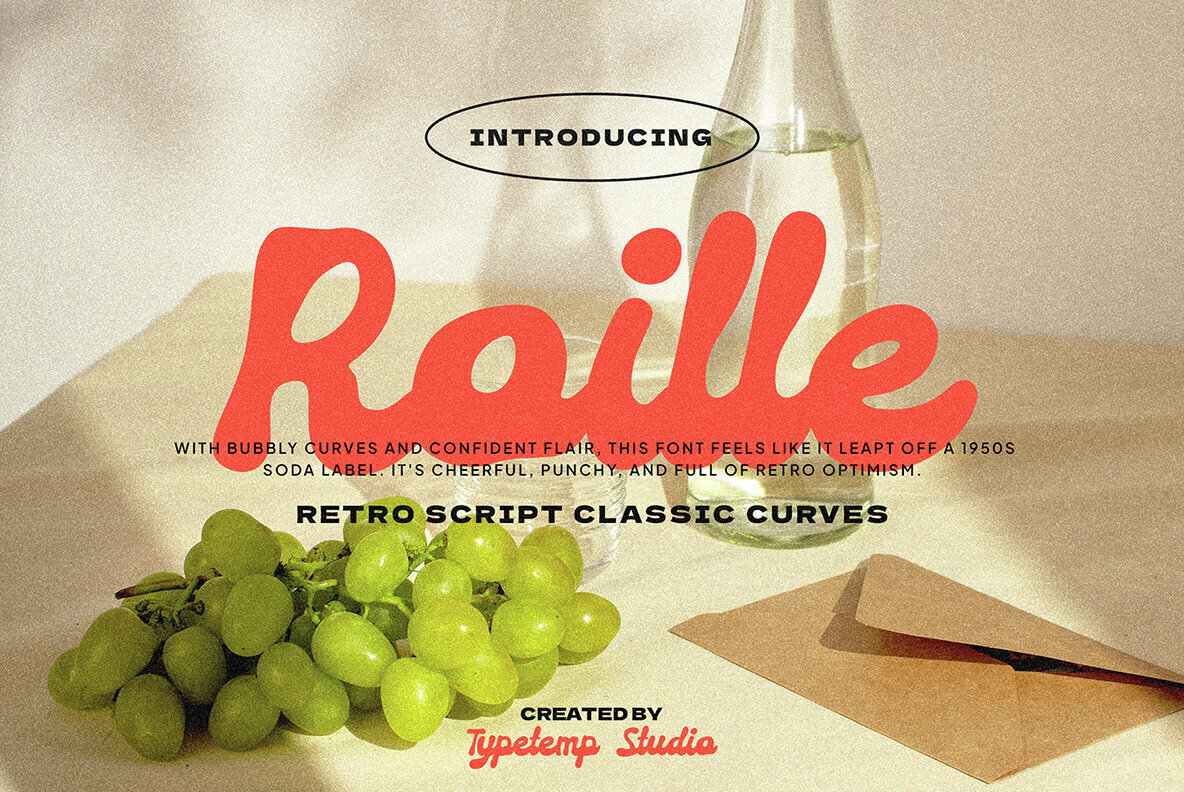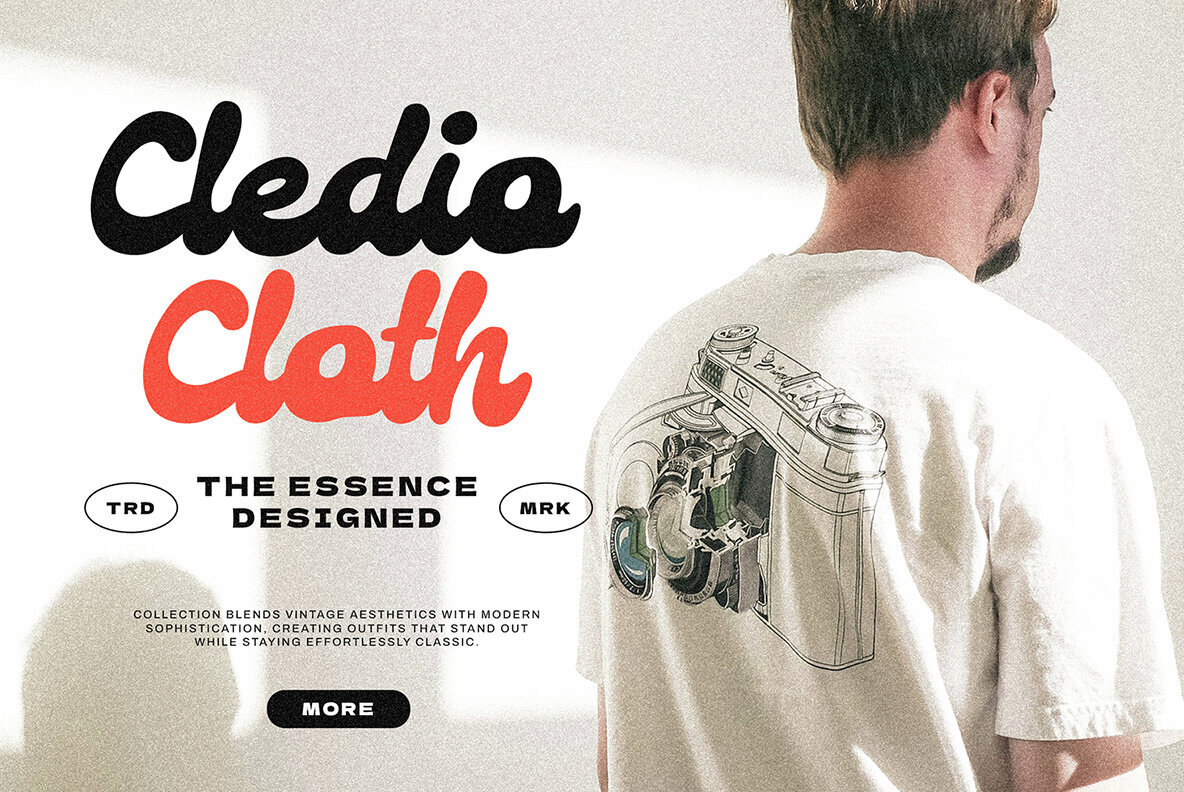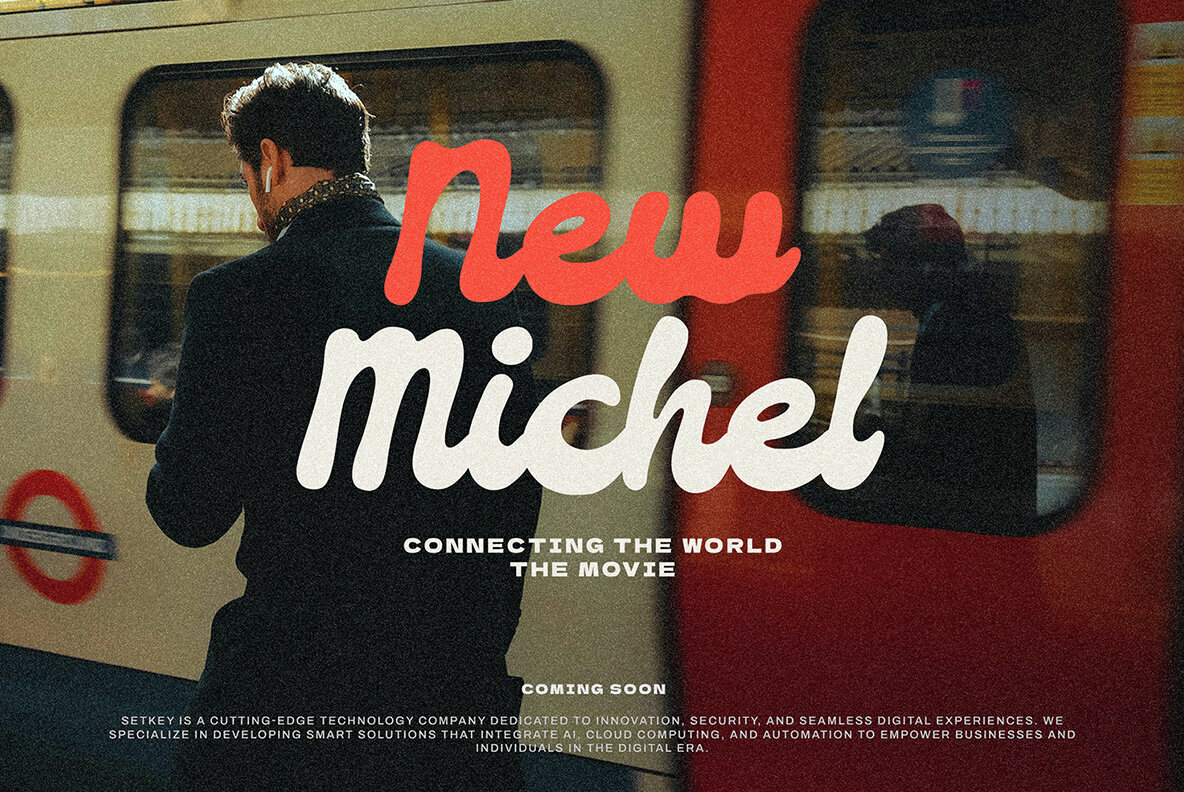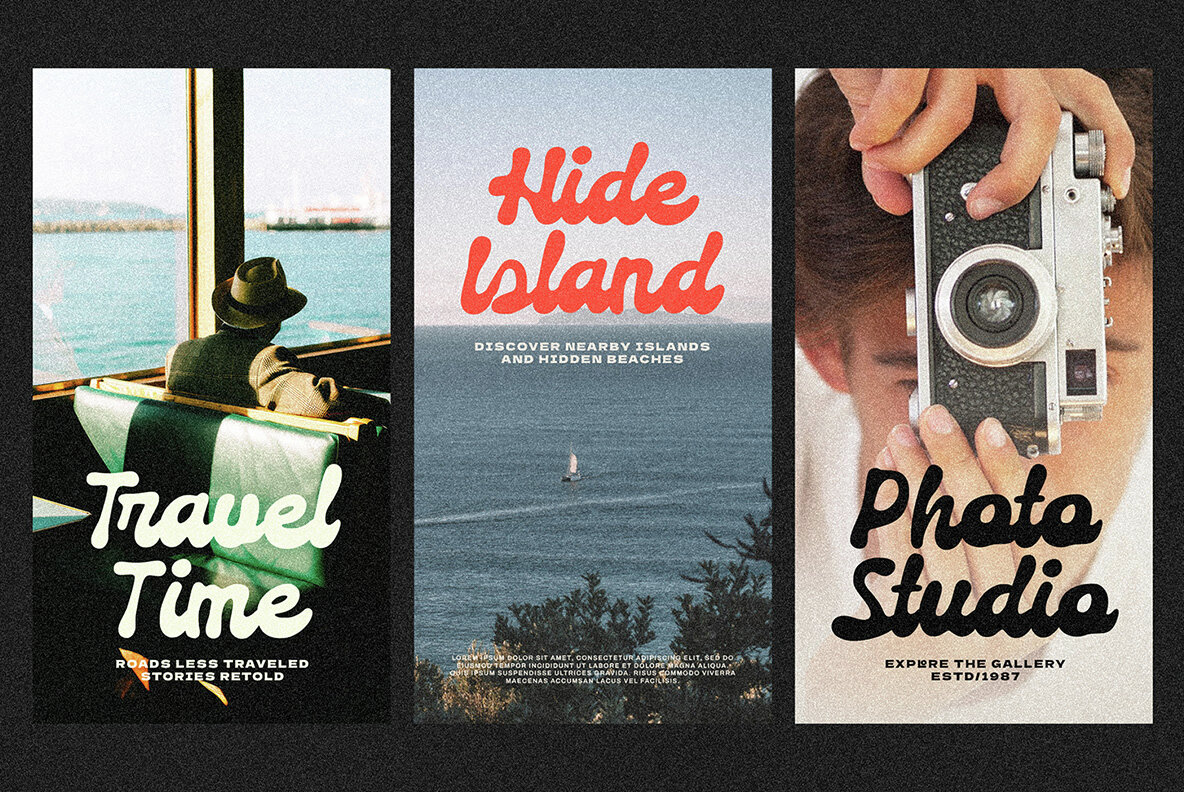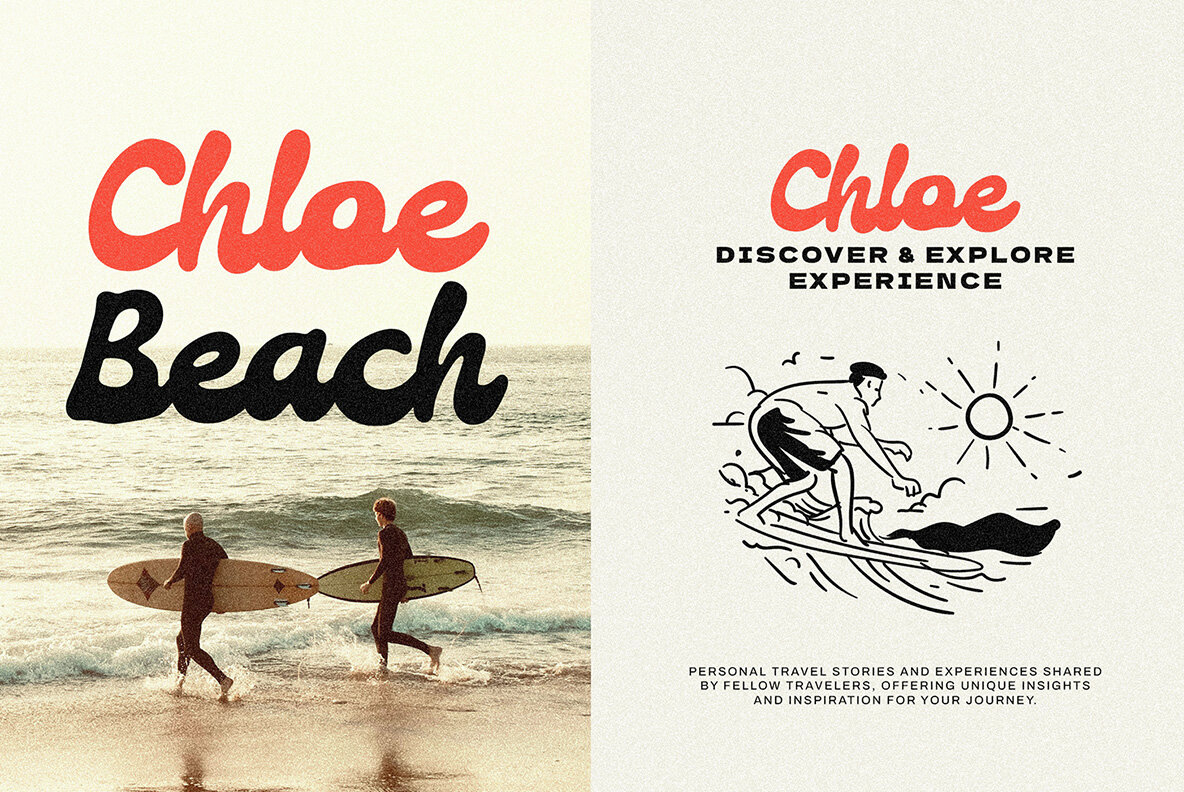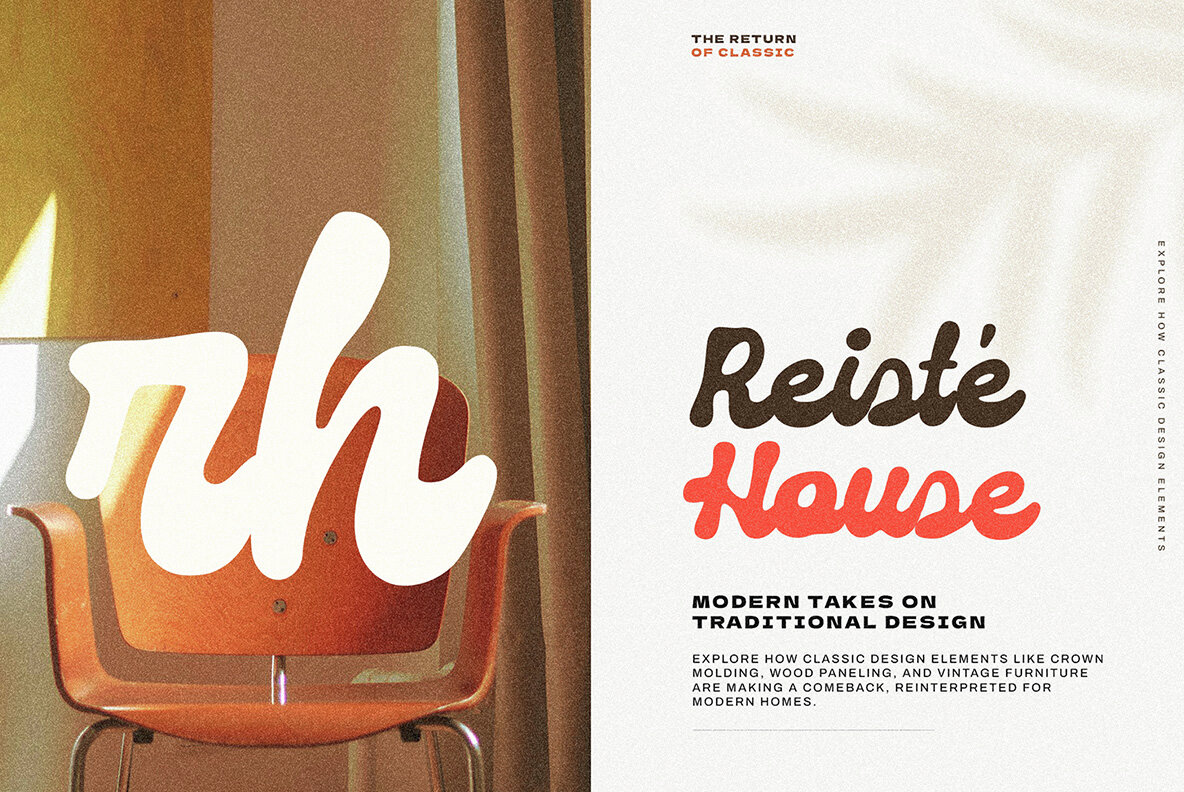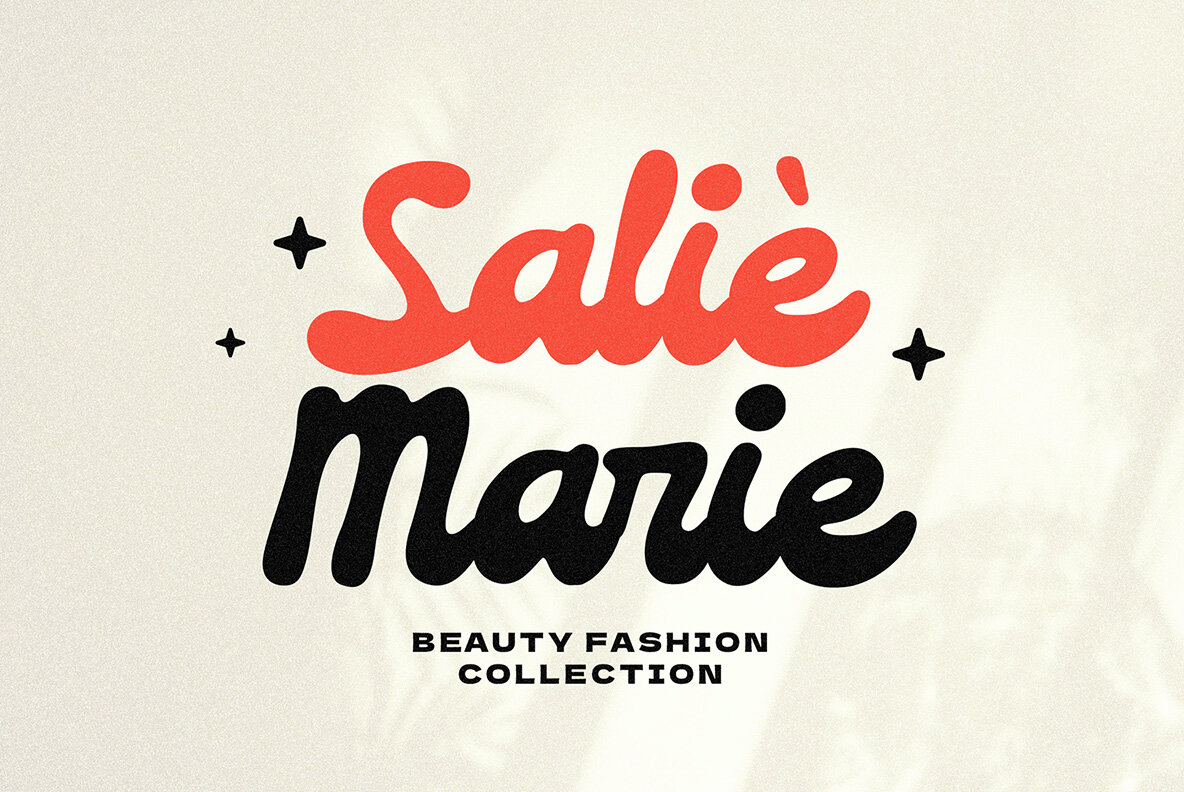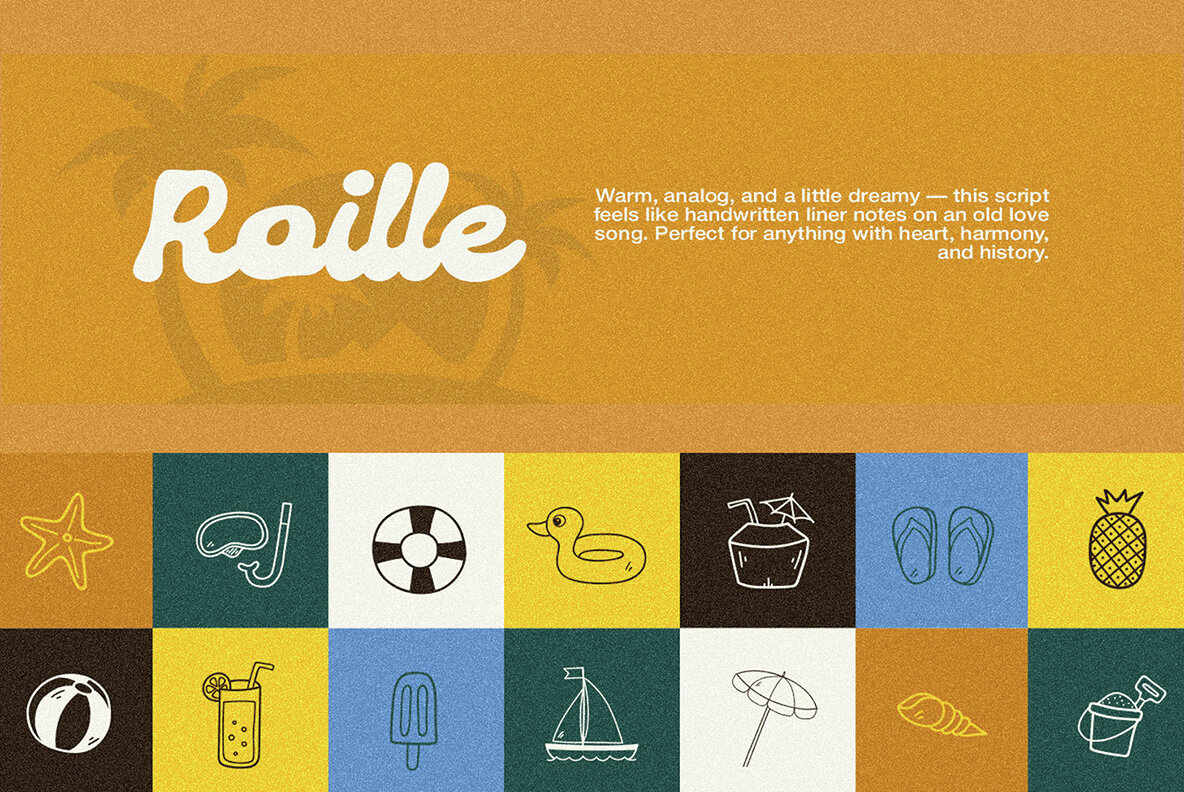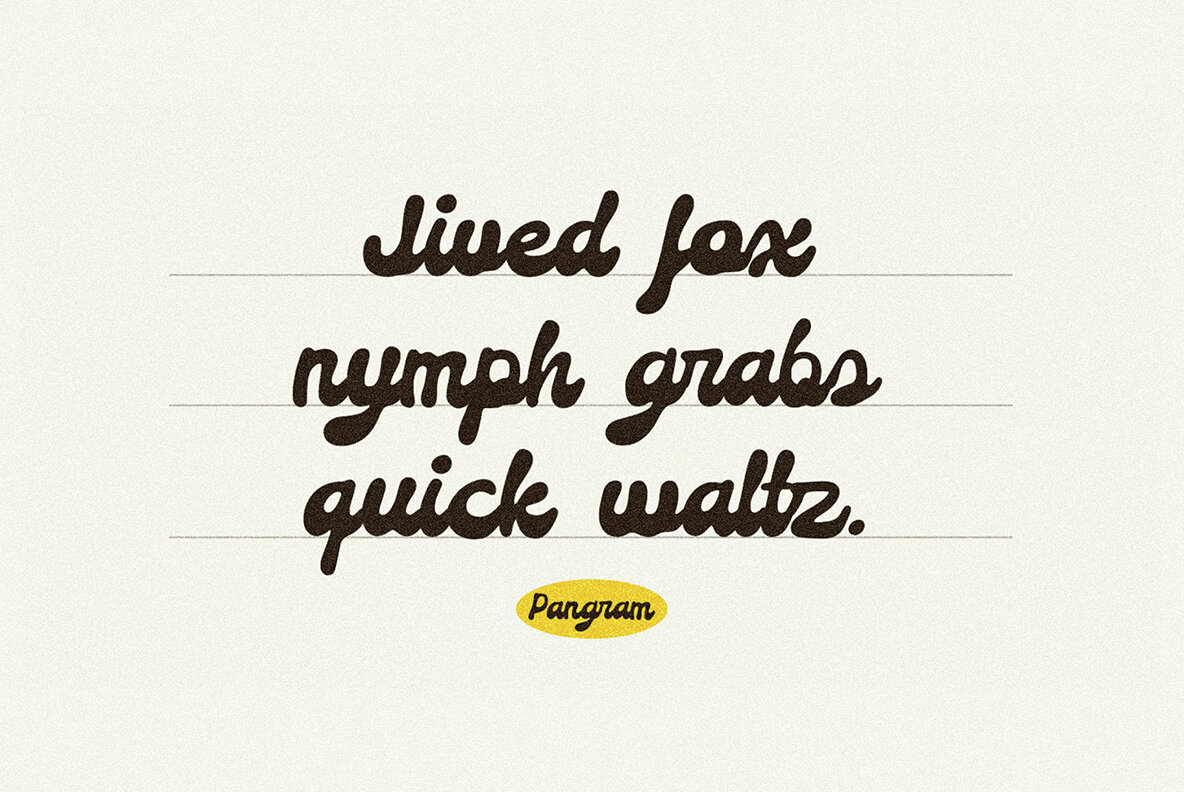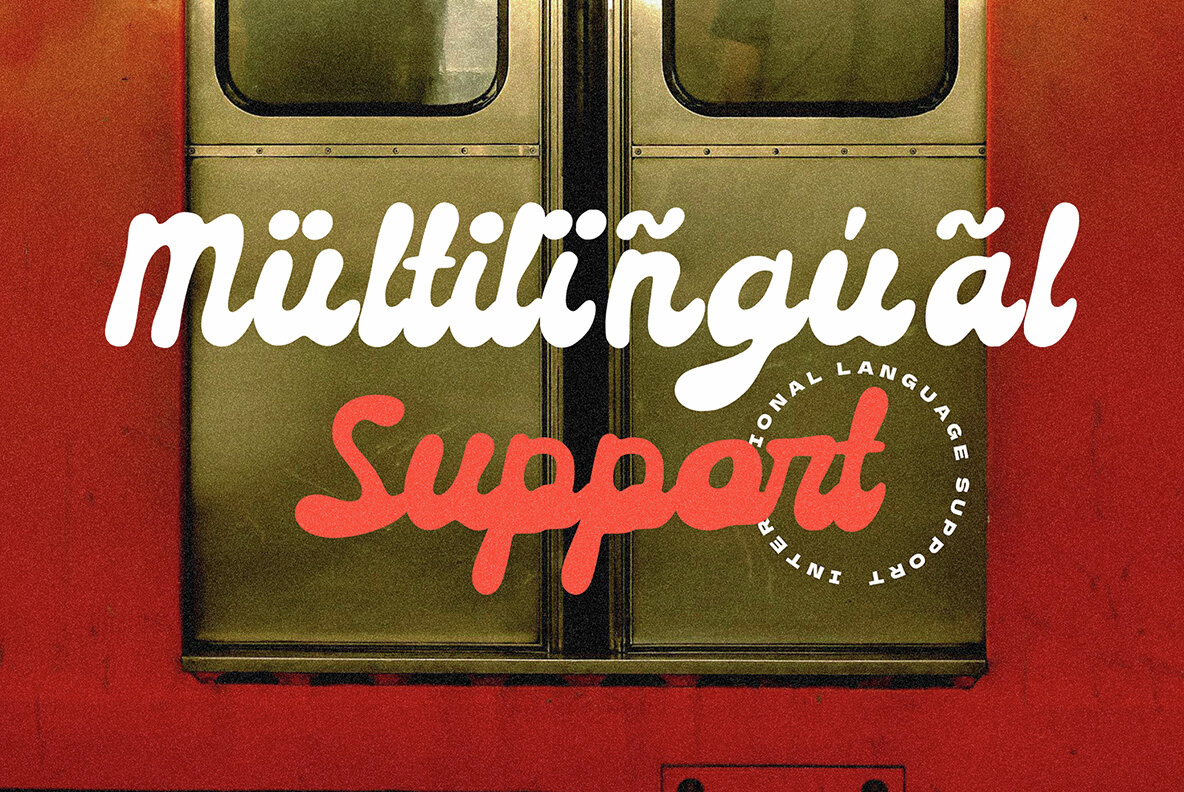
Roille Font
Roille Script Regular
Roille captures the cheerful spirit of the 1950s through its retro script font design, featuring classic curves and bubbly shapes. Inspired by vintage soda labels, this font projects a confident flair and punchy optimism, perfect for branding, packaging, and creative projects that demand a lively, nostalgic touch with a timeless, friendly vibe. With its bold yet elegant style, Roille adds character and warmth, making typography stand out with retro charm and personality. Roille supports multiple languages including Afrikaans, Albanian, Catalan, Croatian, Czech, Danish, Dutch, English, Estonian, Finnish, French, German, Hungarian, Icelandic, Italian, Lithuanian, Maltese, Norwegian, Polish, Portuguese, Slovenian, Spanish, Swedish, Turkish, and Zulu.Roille: A Retro Script with Classic Curves